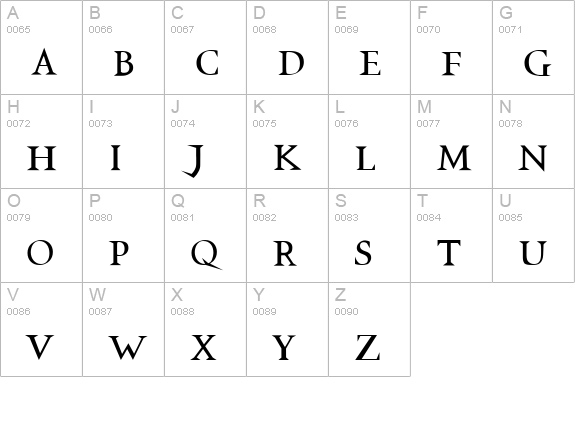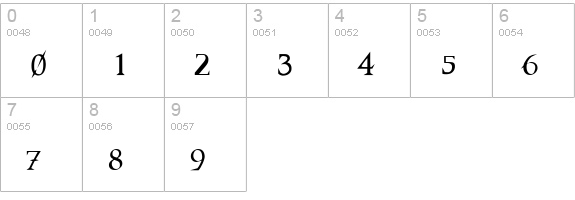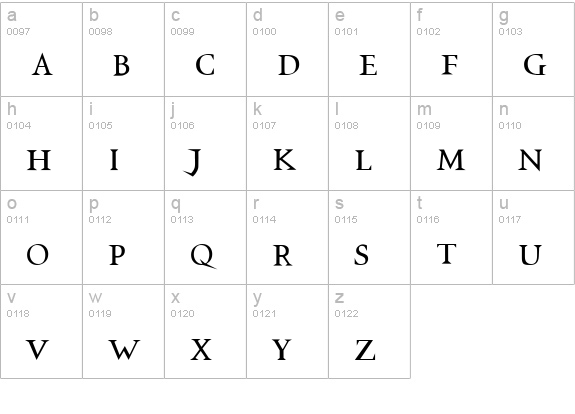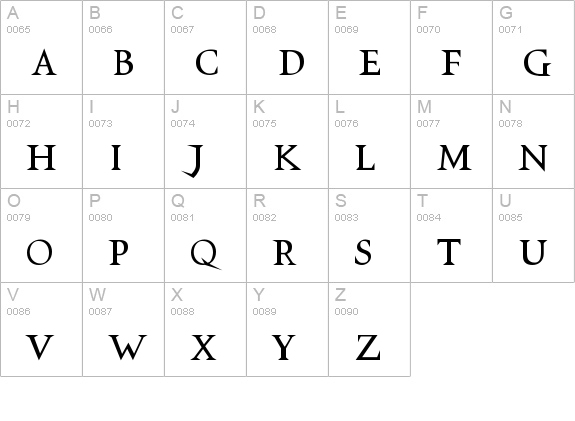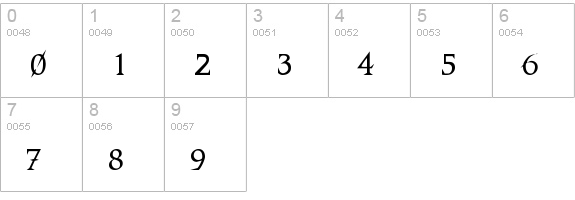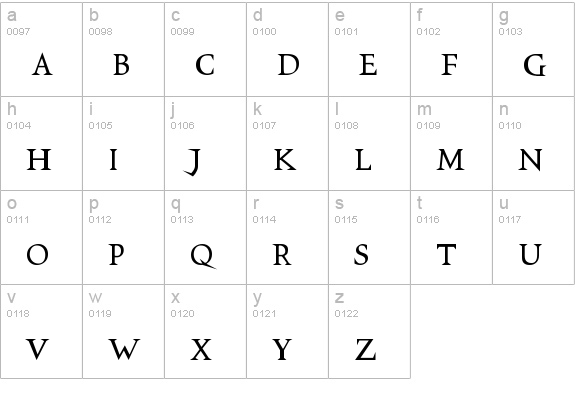
VTCSwitchbladeRomance Font Details
VTCSwitchbladeRomance font is a stunning and unique typeface that captivates the eye with its intricate and edgy design. It is a font that perfectly blends sharpness and elegance, making it a versatile choice for various design projects. With its bold and dramatic strokes, this font adds a touch of mystery and romance to any creative endeavor. What sets VTCSwitchbladeRomance font apart is not only its exceptional aesthetics but also the fact that it is freely available to download. FontsMarket.com offers this font for free, allowing designers, artists, and typographers to access and utilize it without any restrictions or hindrances. Whether you are working on a logo, branding, album cover, or any other design project that demands a bold and captivating typeface, VTCSwitchbladeRomance font will undoubtedly make a remarkable impression. Its unique letterforms and intricate details will make your designs stand out, leaving a lasting impact on your audience. So, why settle for ordinary when you can have extraordinary? Download VTCSwitchbladeRomance font today from FontsMarket.com and unlock a world of creative possibilities. Embrace the freedom this font offers and let your imagination run wild as you create stunning visuals that leave a lasting impression.